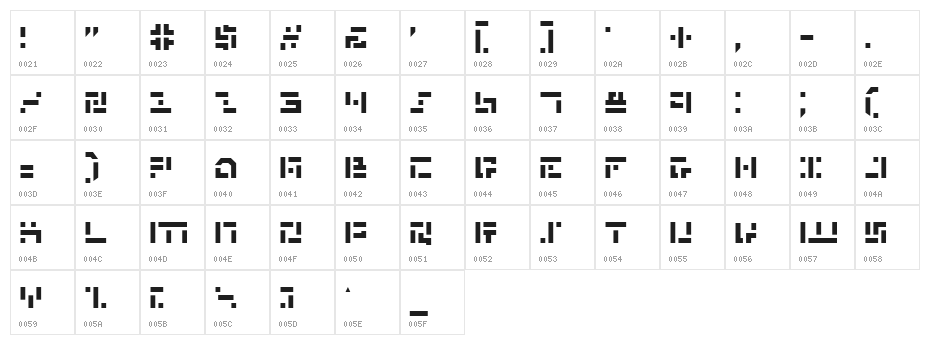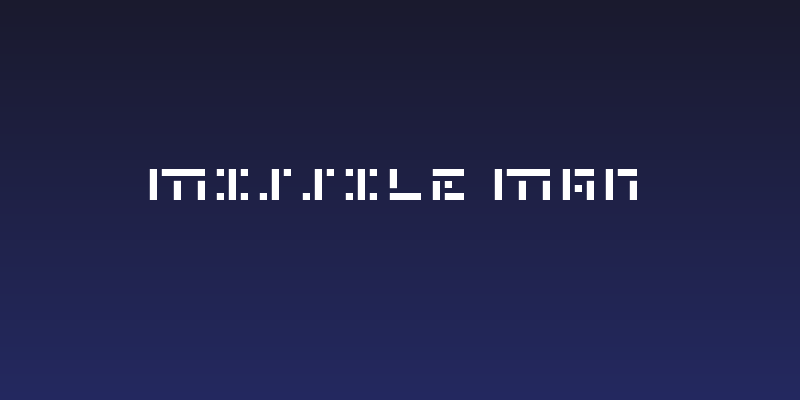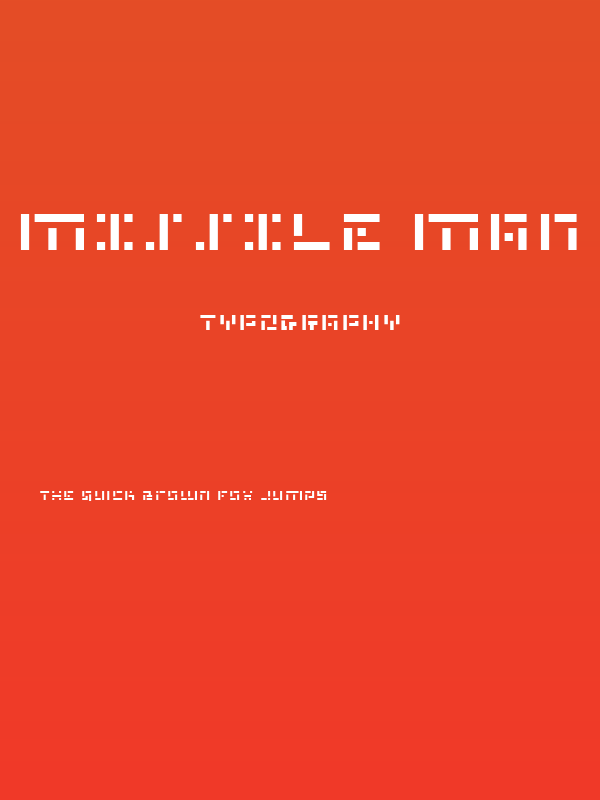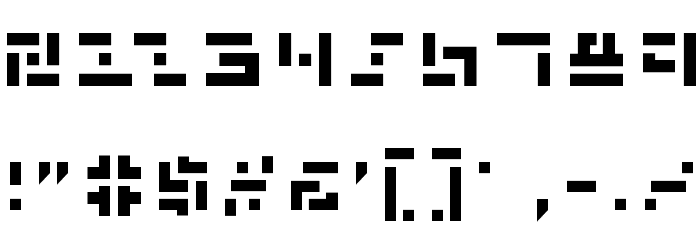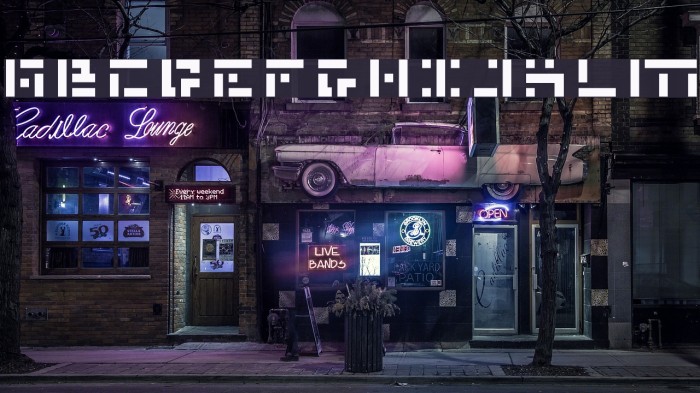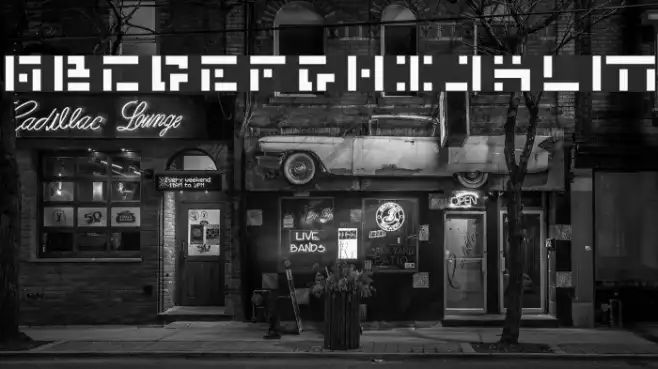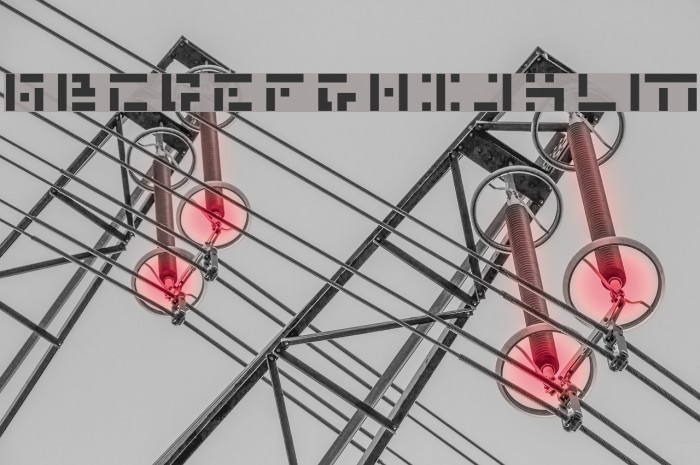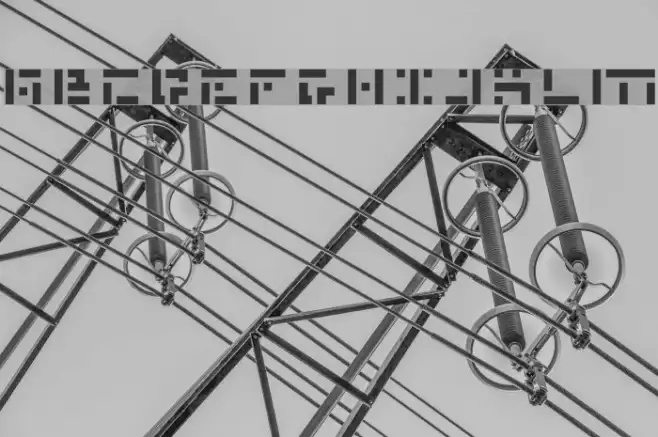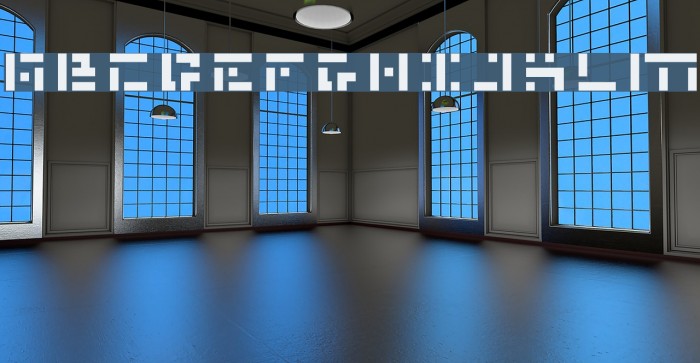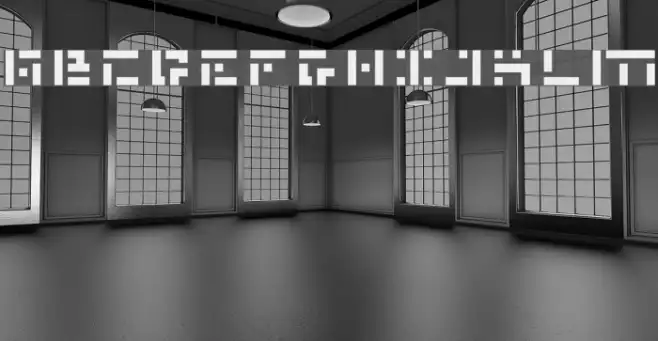
Missile Man Font
Missile Man Description
This font features a bold, geometric design with a distinctly modern and digital aesthetic. Each character is constructed using a series of blocky, pixel-like shapes, giving it a futuristic and technical feel. The uppercase and lowercase letters maintain a consistent style, with sharp angles and a uniform thickness throughout. The numbers and special characters follow the same design principles, ensuring a cohesive look across all glyphs. This font's unique structure makes it stand out, ideal for projects that require a strong, contemporary visual impact. Its rigid, grid-like appearance is reminiscent of digital displays or retro video game graphics, making it suitable for tech-related themes.
| Proposed Projects | Ideal for tech-themed designs, video game graphics, digital displays, and futuristic branding. |